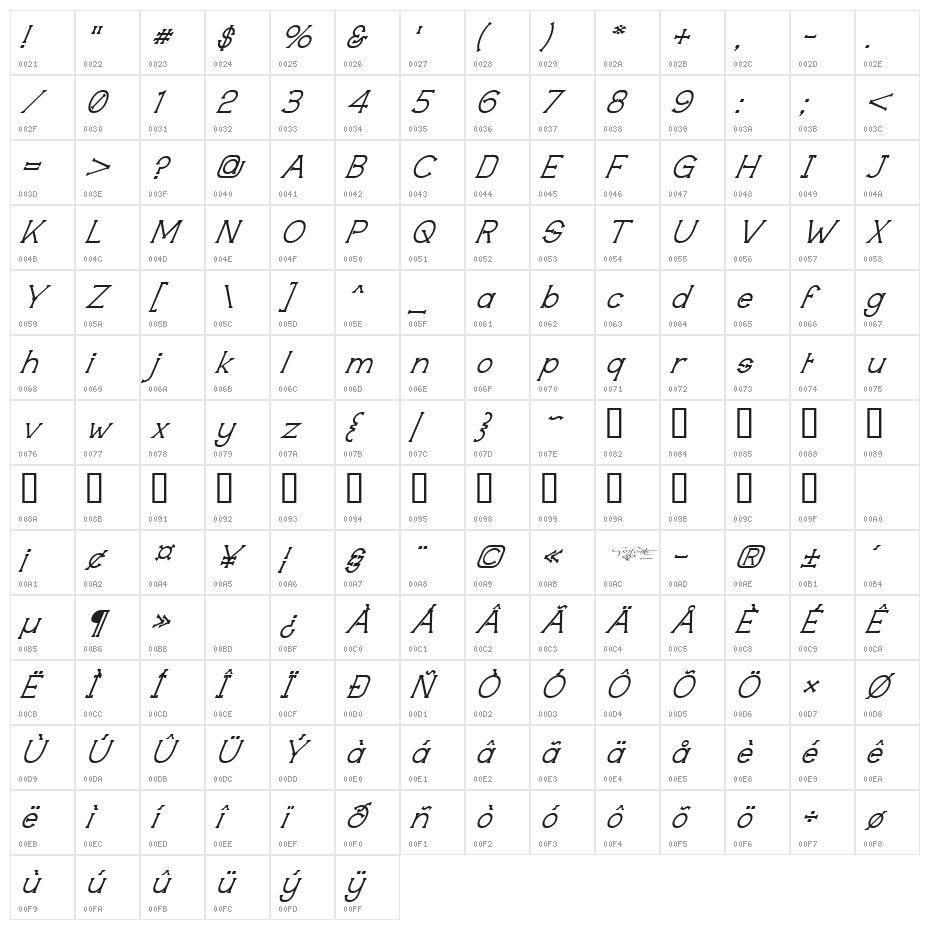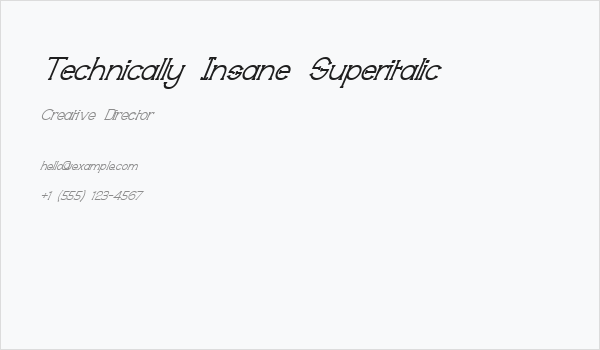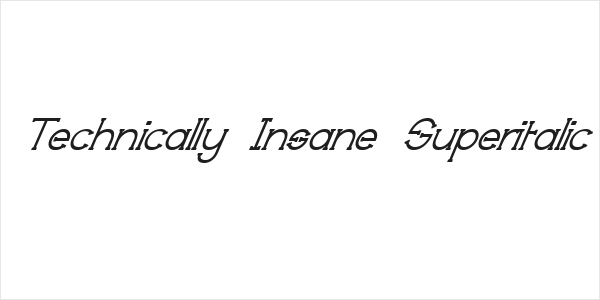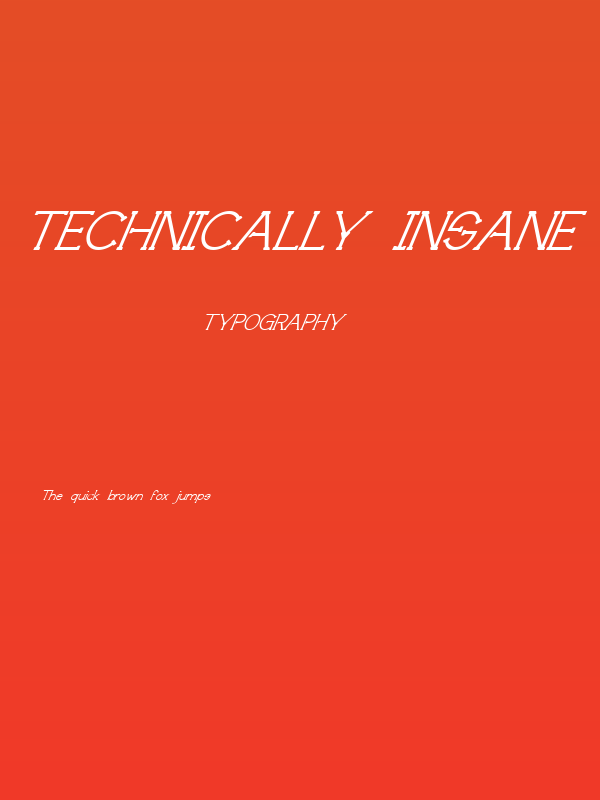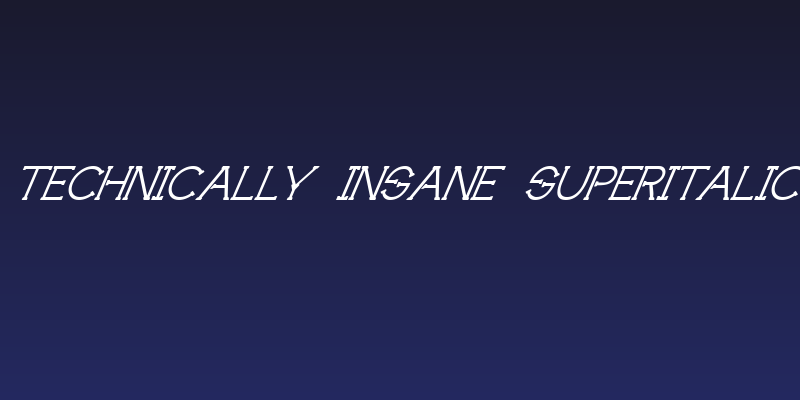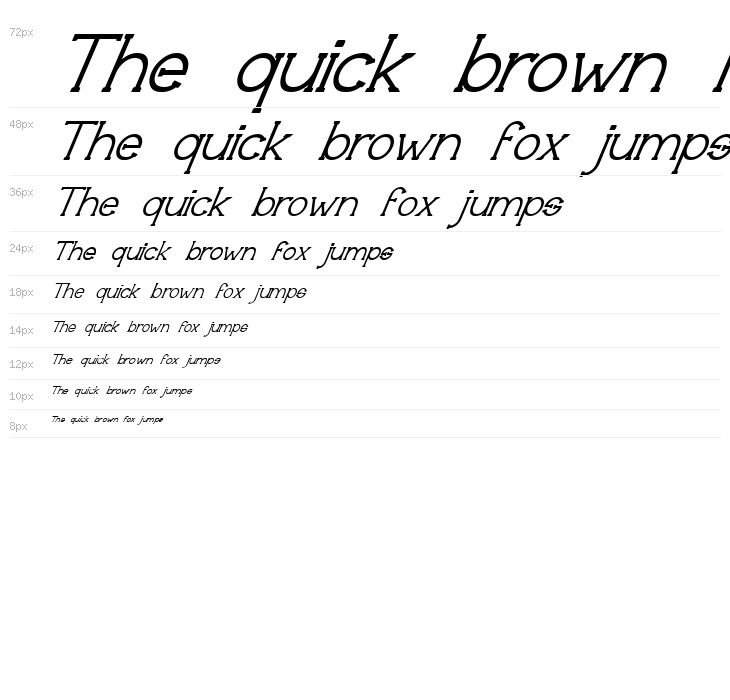
Technically Insane Superitalic Font
Technically Insane Superitalic Description
This font features a dynamic and energetic style with a pronounced slant, giving it a sense of motion and speed. The characters are sleek and elongated, with a consistent stroke width that maintains readability while adding a touch of elegance. The uppercase letters are bold and assertive, while the lowercase letters maintain a smooth flow, enhancing the overall aesthetic. The numerals are clear and distinct, matching the style of the alphabet. Special characters are well-integrated, maintaining the font's cohesive look. This font is ideal for projects that require a modern and edgy appearance.